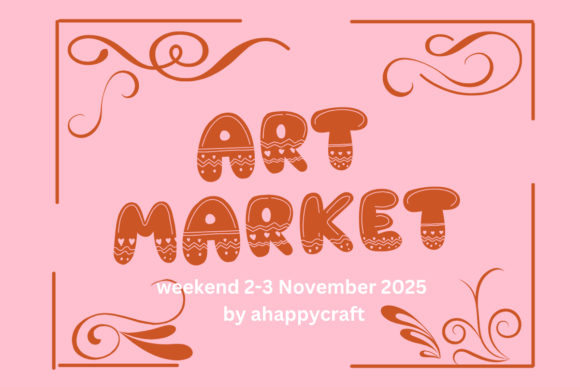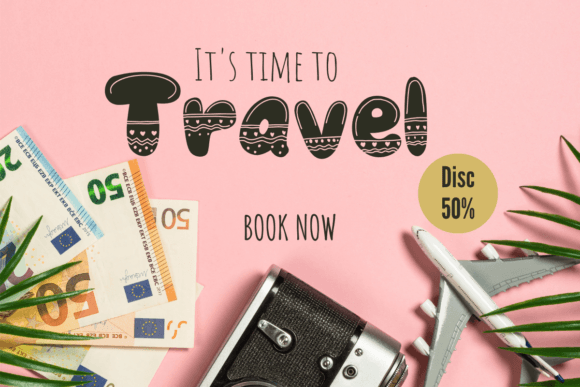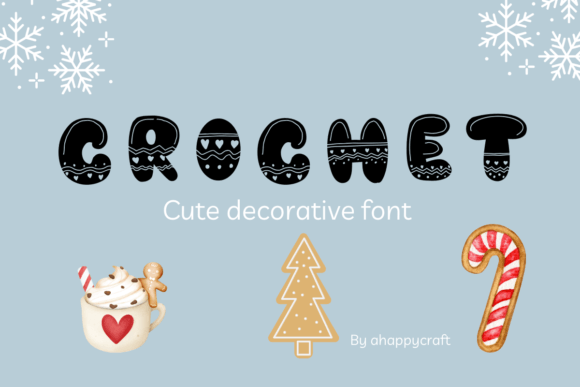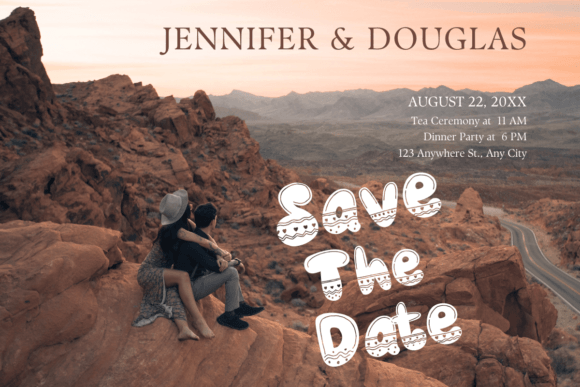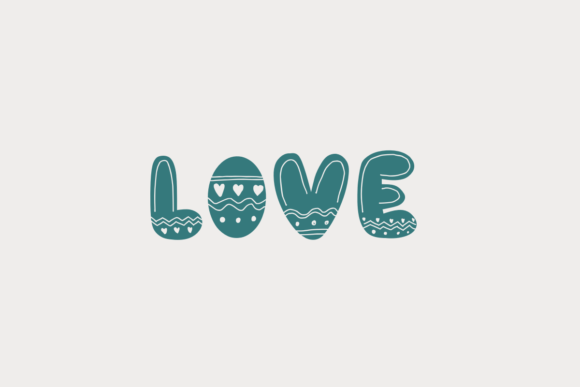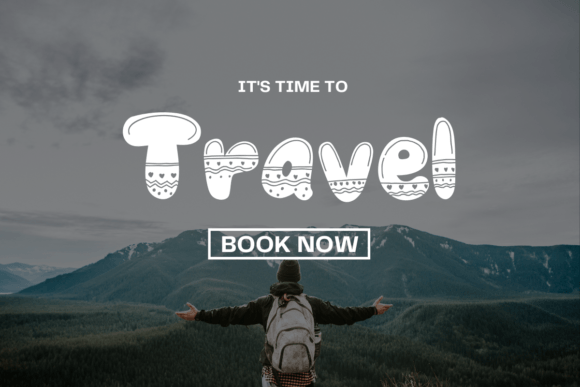
Crochet Font: Elevate Your Designs with this Gorgeous Decorative Font
As the seasons change, and the world becomes a canvas of vibrant colors and cozy textures, it’s the perfect time to refresh your font library with something special. Introducing Crochet Font, a stunning decorative font that’s sure to become an indispensable asset for designers and crafters alike. In this article, we’ll dive into the world of Crochet Font, exploring its unique features, versatility, and the endless creative possibilities it offers.
The Charm of Crochet Font
Crochet Font is a beautifully crafted decorative font that exudes warmth, coziness, and a touch of handmade charm. Its intricate, looped design is reminiscent of the classic crochet stitches, evoking feelings of nostalgia and comfort. This gorgeous font is perfect for a wide range of design projects, from seasonal decorations and holiday cards to branding, packaging, and digital content.
Why Crochet Font Stands Out
No matter the topic or theme, Crochet Font has the potential to elevate any creation with its unique and captivating design. Here are just a few reasons why Crochet Font stands out:
- Versatility: Crochet Font can be used for a wide range of design projects, from elegant wedding invitations and festive holiday cards to playful craft tutorials and social media graphics.
- Readability: Despite its decorative nature, Crochet Font remains surprisingly readable, making it perfect for both headlines and body text.
- Uniqueness: Crochet Font’s distinctive design sets it apart from more traditional fonts, adding a touch of personality and whimsy to any design.
Crochet Font in Action
So, how can you use Crochet Font to enhance your designs? Here are a few inspiring ideas to get you started:
- Seasonal Decorations: Use Crochet Font to create eye-catching seasonal decorations, such as holiday cards, gift tags, and party invitations.
- Craft Tutorials: Add a touch of personality to your craft tutorials and patterns with Crochet Font, making them more engaging and fun to follow.
- Branding and Packaging: Incorporate Crochet Font into your branding and packaging design to add a touch of warmth and approachability.
- Digital Content: Use Crochet Font to create engaging social media graphics, blog posts, and email newsletters that stand out from the crowd.
Tips for Working with Crochet Font
To get the most out of Crochet Font, here are a few expert tips to keep in mind:
- Experiment with Colors: Crochet Font looks stunning in a range of colors, from rich brights to soft pastels. Experiment with different hues to find the perfect match for your design.
- Play with Texture: Combine Crochet Font with textured backgrounds or graphics to add depth and interest to your design.
- Mix and Match: Don’t be afraid to mix and match Crochet Font with other fonts to create a unique and eye-catching design.
Crochet Font is a gorgeous decorative font that’s sure to become a staple in your design library. With its unique blend of elegance, whimsy, and versatility, it’s the perfect choice for designers and crafters looking to add a touch of personality to their creations. Whether you’re working on a seasonal decoration, craft tutorial, or branding project, Crochet Font is sure to inspire and elevate your design.